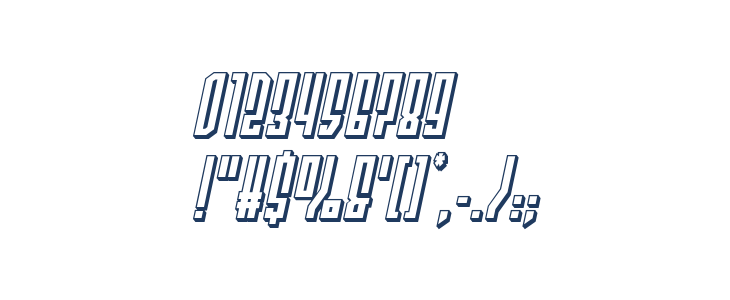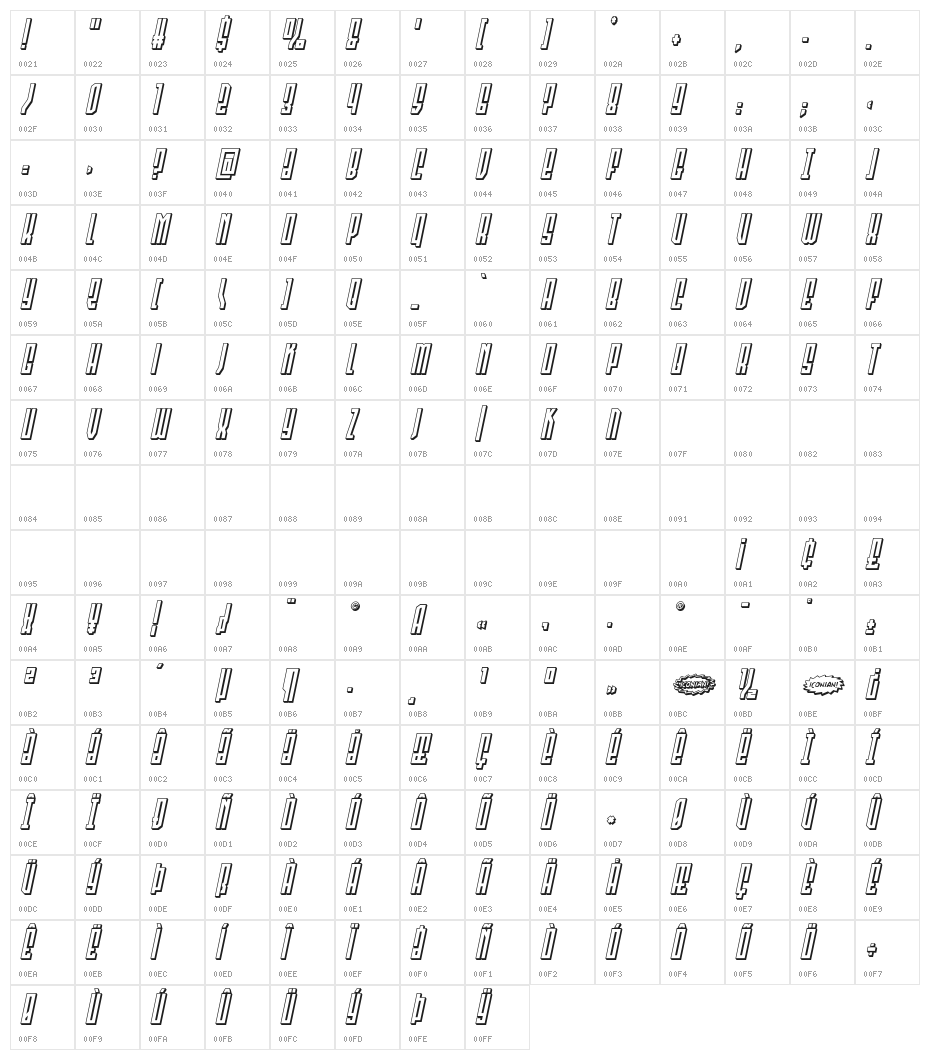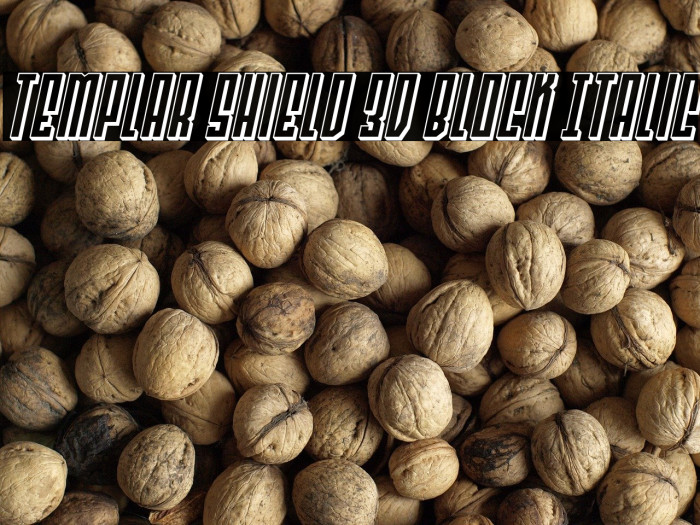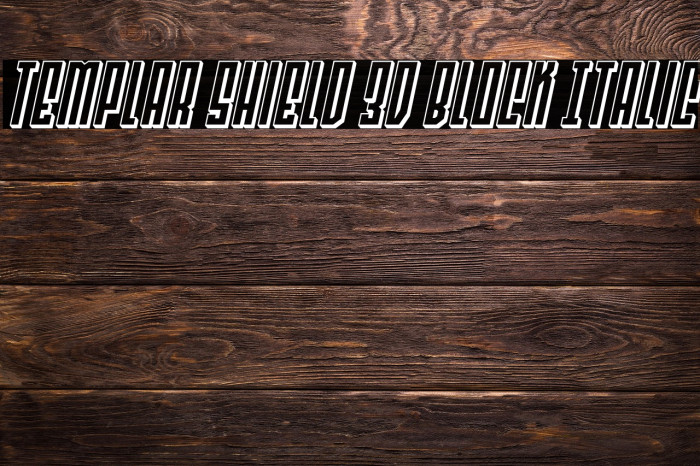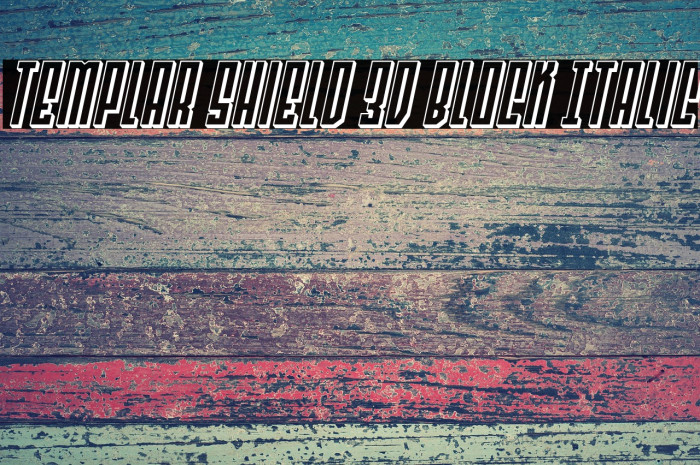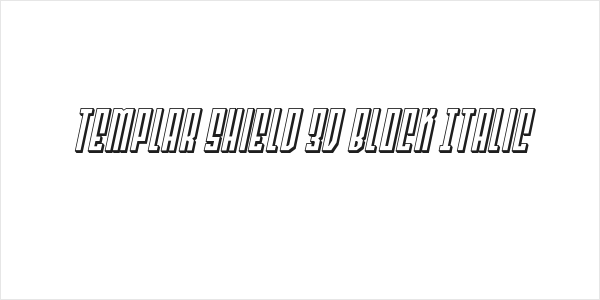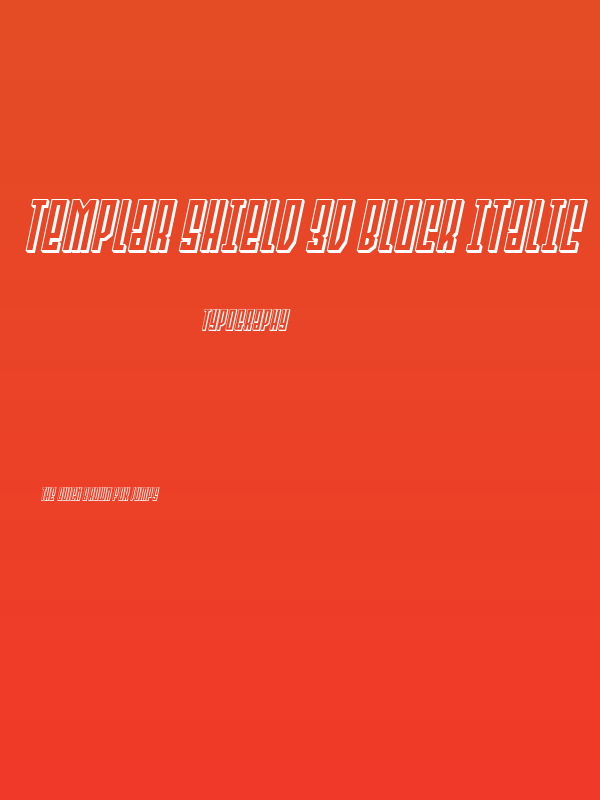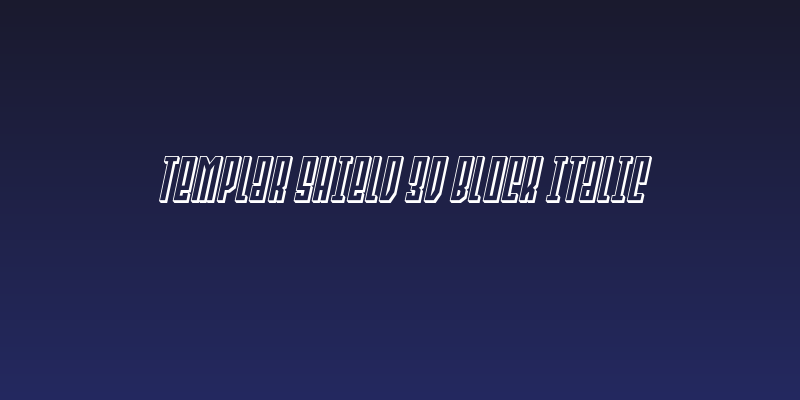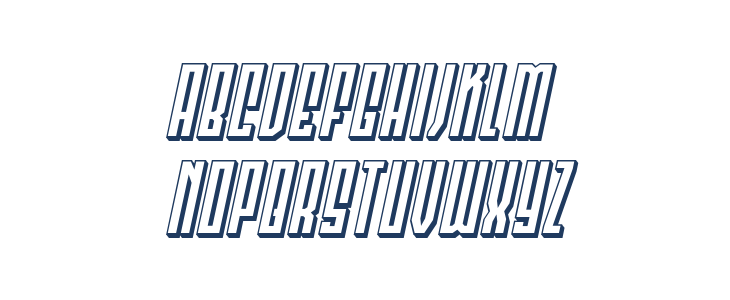
Templar Shield 3D Block Italic Font
Templar Shield 3D Block Italic Description
This font features a bold, three-dimensional block style with a distinct italic slant, giving it a dynamic and impactful appearance. The characters are outlined, adding depth and a shadow effect that enhances its 3D look. The uppercase and lowercase letters maintain consistent geometric shapes, with sharp angles and clean lines. The numbers and special characters follow the same design principles, ensuring uniformity across all glyphs. This font's boldness and unique style make it suitable for attention-grabbing designs.